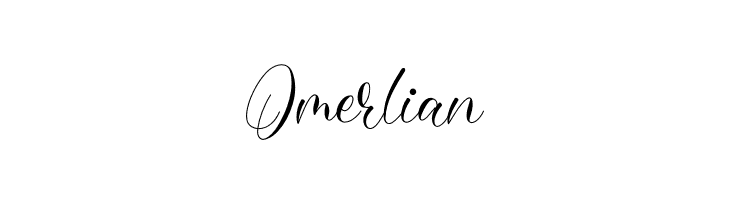
A cursive, handwritten-style font with elegant, flowing strokes.
A dynamic and elegant script font with flowing, cursive letterforms.
A lively, cursive script font with smooth, connected strokes.
A thin, elegant font with elongated strokes and a whimsical touch.